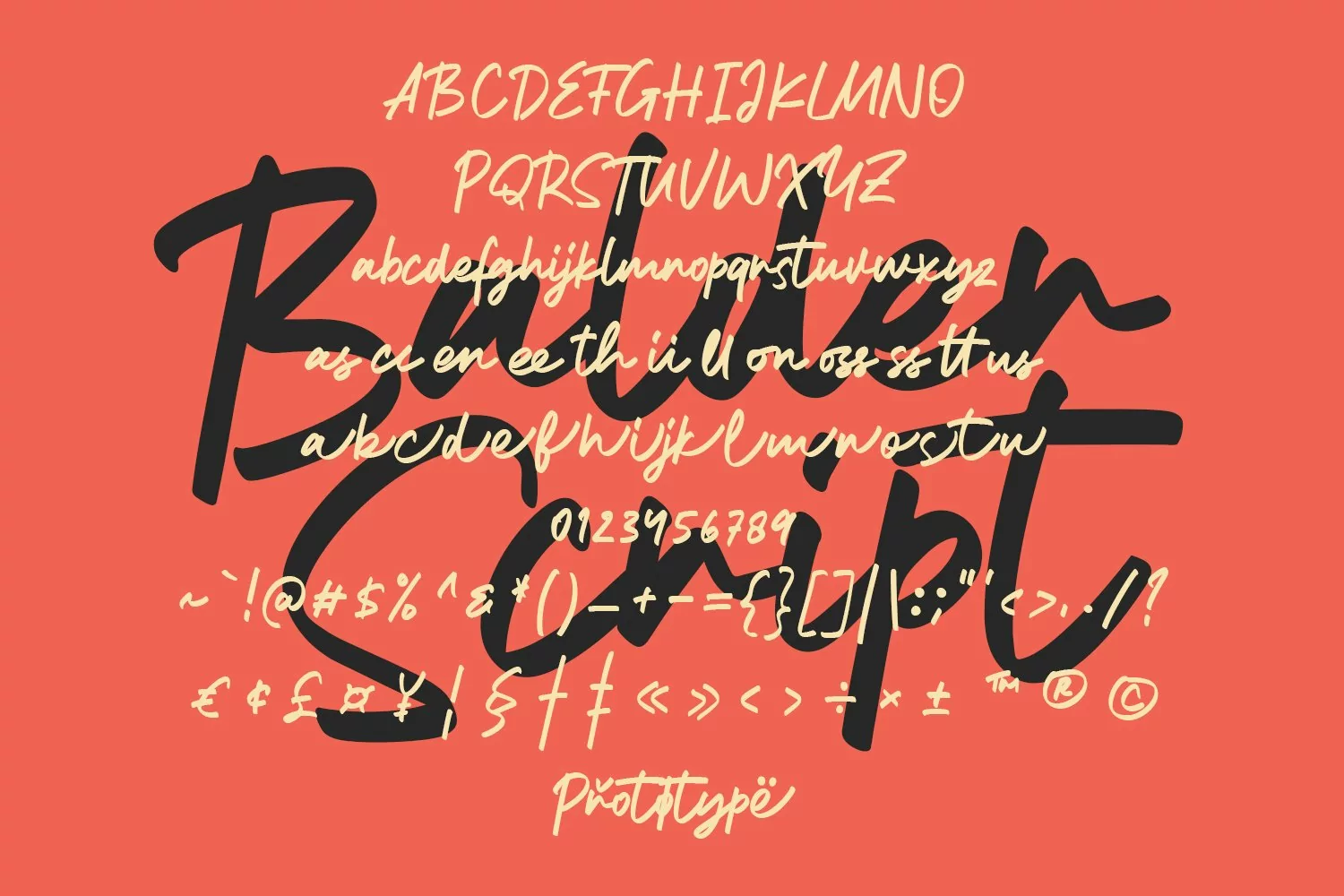
Give your designs an authentic handcrafted feel. "Balder Script" is perfectly suited to signature, stationery, logo, typography quotes, magazine or book cover, website header, clothing, branding, packaging design and more.